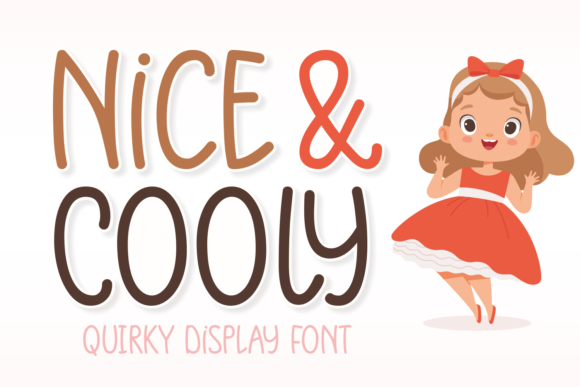
Journey into the realm of Nice and Cooly, a whimsical display font that captivates hearts with its playful charm. This delightful typeface is meticulously crafted to evoke a sense of joy and wonder, making it the perfect companion for imaginative projects.
Dive into a world of creativity with Nice and Cooly, and let your imagination run wild. Capture the essence of childhood dreams and bring them to life through captivating posters, logos, and t-shirts that radiate pure delight. Transform nursery rooms into enchanting havens with playful designs that spark curiosity and imagination.
Every character in Nice and Cooly is infused with a touch of magic, inviting you to create enchanting quotes that resonate with the hearts of your audience. Let your words dance across the page, carrying messages of love, laughter, and boundless joy. Unleash your creativity and explore the endless possibilities of children-themed creations, knowing that Nice and Cooly will be your steadfast companion along the way.
With Nice and Cooly as your creative ally, you'll discover a font that's more than just a collection of letters -- it's a gateway to a world where imagination reigns supreme. Embrace the whimsical spirit of Nice and Cooly and embark on a creative adventure that will leave you breathless.